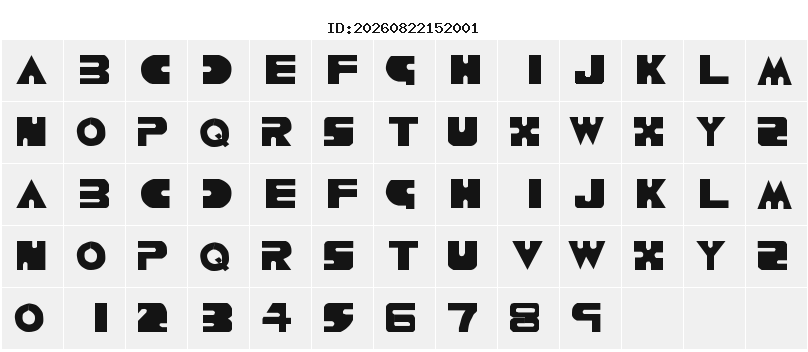
Scoop Preview
• Font Name: Scoop
• Full Font Name: Scoop
About Scoop.ttf
Scoop.ttf is a modern, elegant sans-serif font designed for ultimate readability and visual harmony. Perfect for branding, headlines, web design, and print materials.